Cool Streetwear Clothing Fonts 2022
Cool Streetwear Clothing Fonts 2022. It features striking text against a contrasting background. Streetwear font free download click on the below link to download its free version which can use free for personal use.
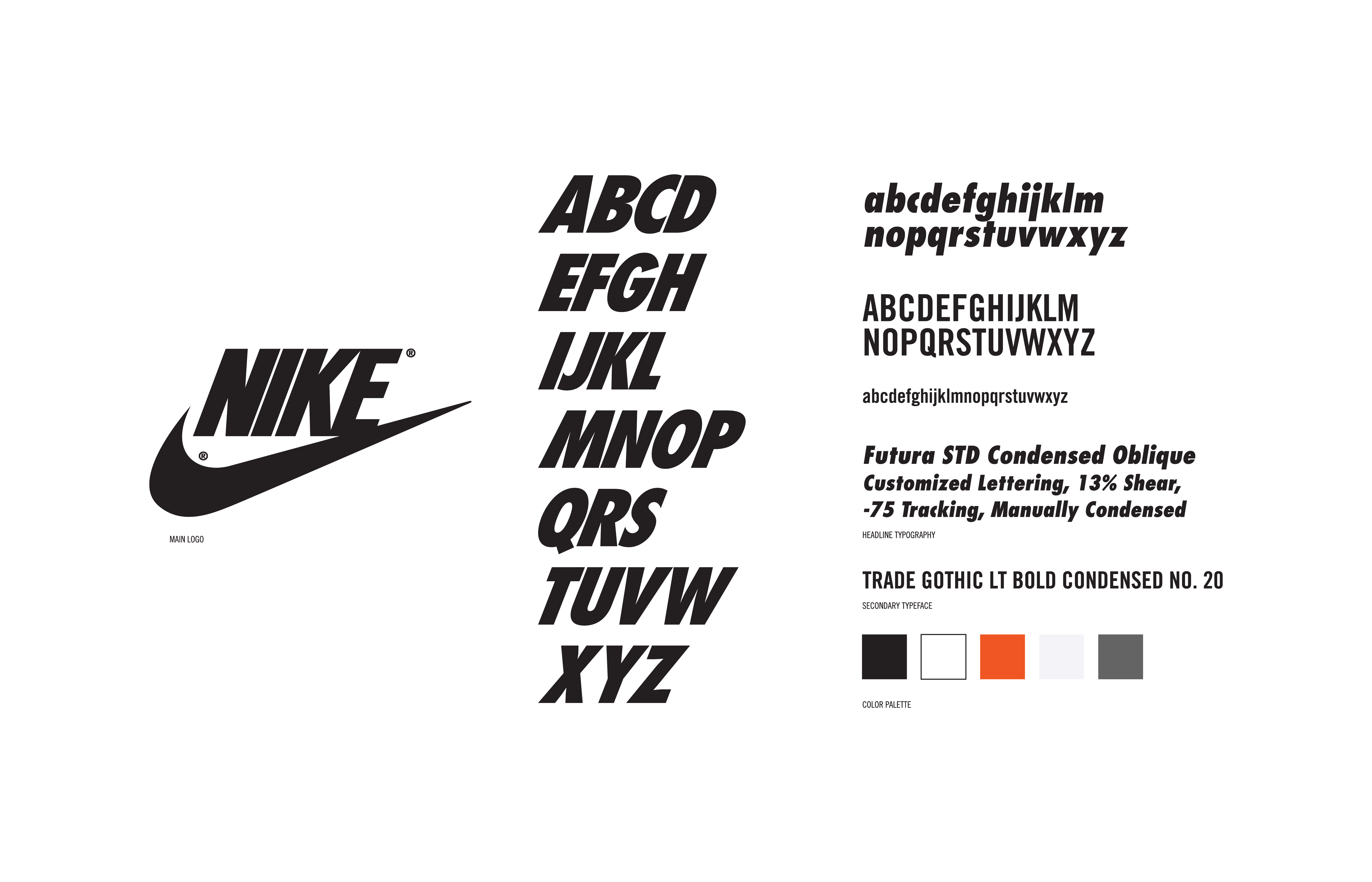
Best Streetwear Fonts Check Out The Best Streetwear Fonts And The Most Popular Hypebeast Brands!
It looks like 1960s and 70s fashion and sport related typeface,. Explore 79,811 stunning clothing fonts to download and find the perfect match that fits your next web and print design projects of all sizes. Streetwear font free download click on the below link to download its free version which can use free for personal use.
Overall, Streetwear Font Services Provide An Interesting And Unique Way To Add Personality To Your Clothes.
In the case of commercial projects, you should. A weeks ago, we posted an infographic about how uncreative streetwear brands like supreme, hba and nike were with their fonts — basically everyone uses either futura or helvetica. It features striking text against a contrasting background.
Robak Means Bug, And Bugs Are A.
The supreme logo uses futura std heavy oblique font in. We have fixed the problem and are committed to ensuring this won’t happen again. It is suitable for all kinds of projects, such as logotypes,.
It Looks Like 1960S And 70S Fashion And.